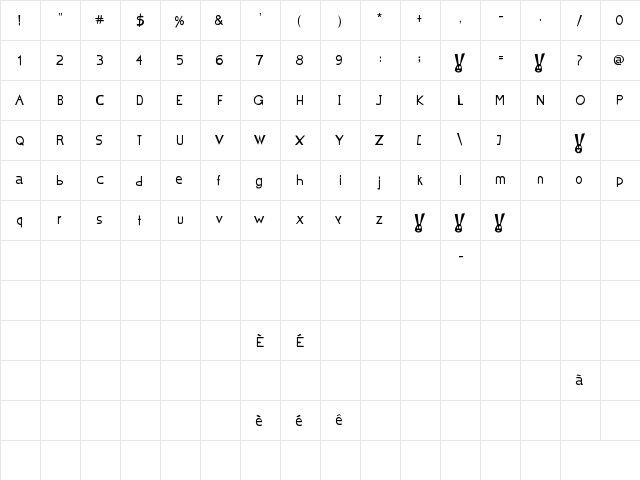
chocolat_bleu Regular
| Designer | Jonathan Paquette |
Design Context for chocolat_bleu Typeface
chocolat_bleu offers clean, dependable letterforms without strong stylistic allegiance, making it a practical choice for designers who need flexibility.